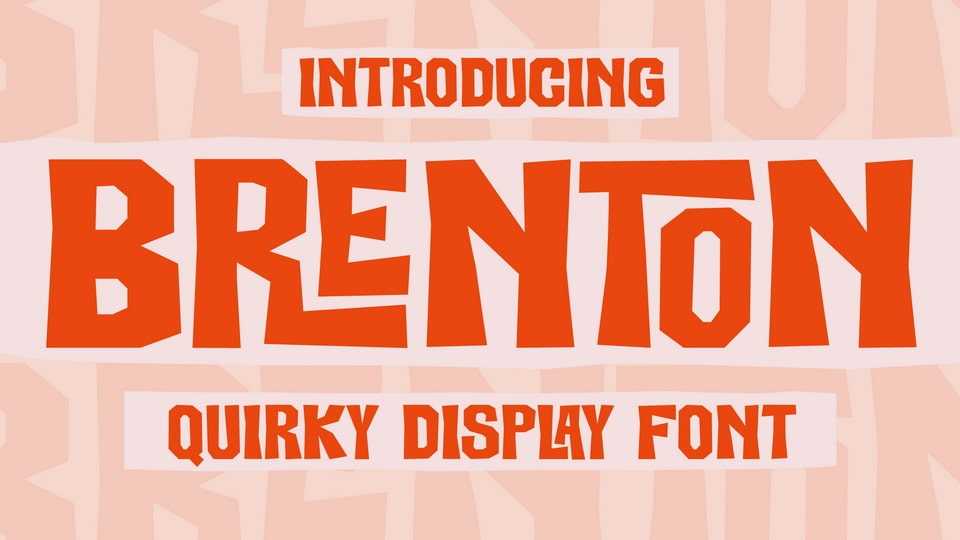
Download Brenton font, a quirky display typeface that has own unique style and modern look. Brenton font is perfect for a logo, book or movie title design, fashion brand, magazine, clothes, lettering, quotes, and so much more.